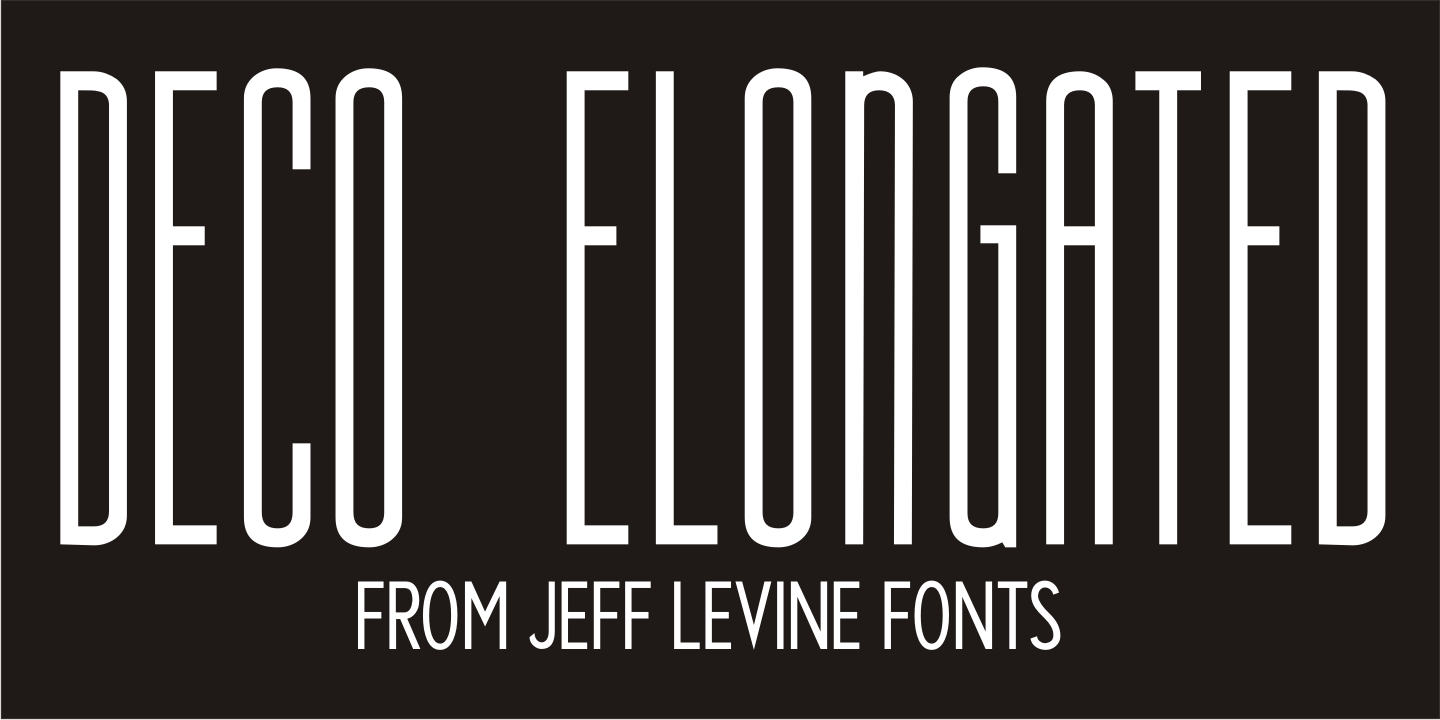
If you're looking for a stylish, vintage-inspired typeface with a classic Art Deco aesthetic, Deco Elongated JNL Font Free Download is the perfect choice for your creative projects. This elegant font features tall, narrow letterforms with geometric precision, making it ideal for posters, logos, signage, invitations, packaging, and branding that need a sophisticated, retro vibe. Its sleek and timeless design evokes the glamour and elegance of the 1920s and 1930s.
Deco Elongated JNL Font offers excellent readability while maintaining its distinctive vintage charm. It includes multilingual support and a variety of glyphs, giving designers the flexibility to create polished, high-end typography. Whether you're crafting event invitations, branding a luxury product, or designing retro-inspired promotional materials, this font delivers refinement and style.